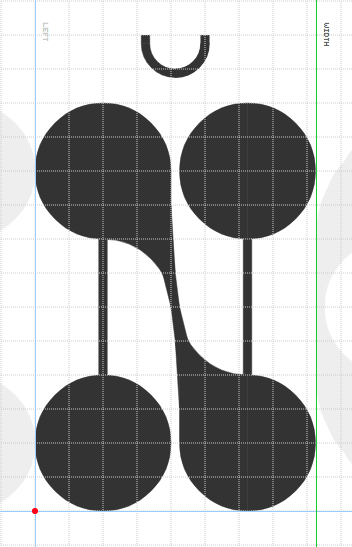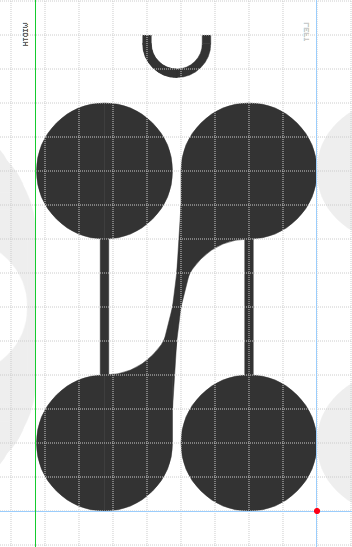
Thanks one more time for add the cyrillic set to one of my fonts, Dmitriy. And what about this version of the Й?
@elmoyenique: Thank you for so cool font! I made different alternative Й in lc, your version of cratka too small. And i made classic latin K.